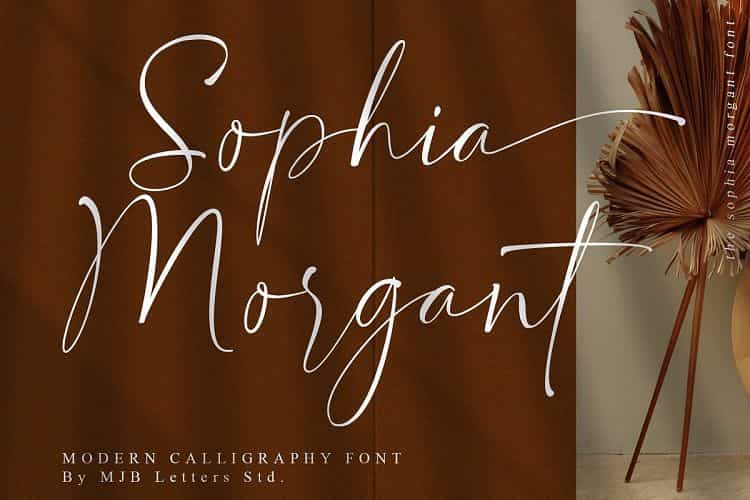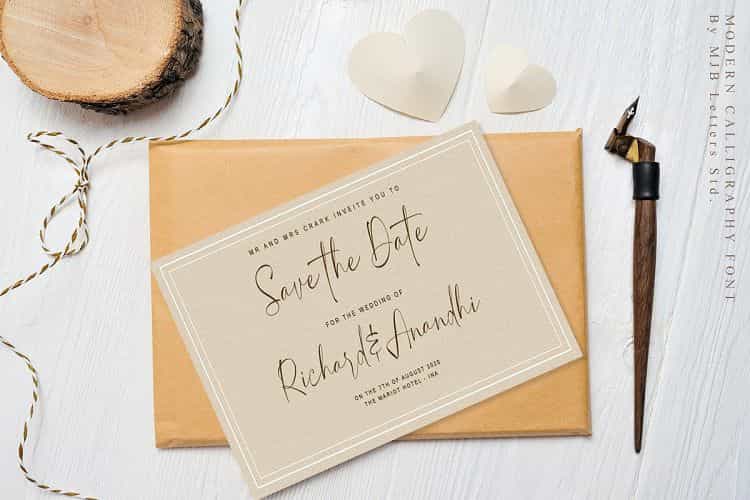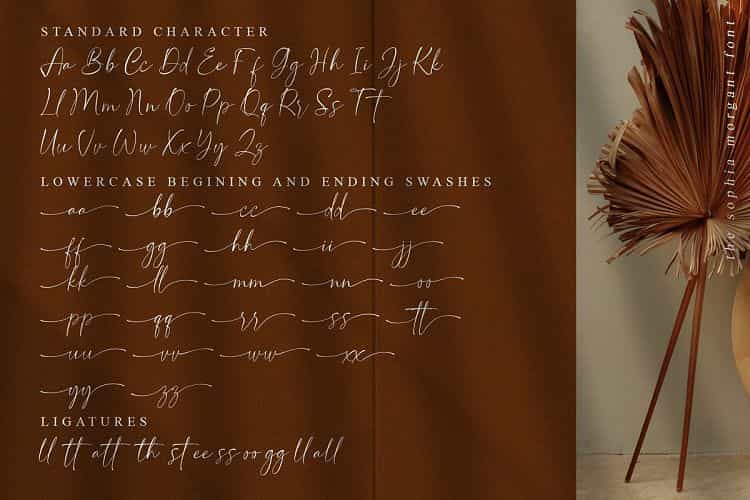
Sophia Morgant is a contemporary, fashionable and natural calligraphy font with thick and thin strokes. Sophia Morgant Font is a fashionable and informal script font that goes well with plenty of other fonts and can be used in many different situations.